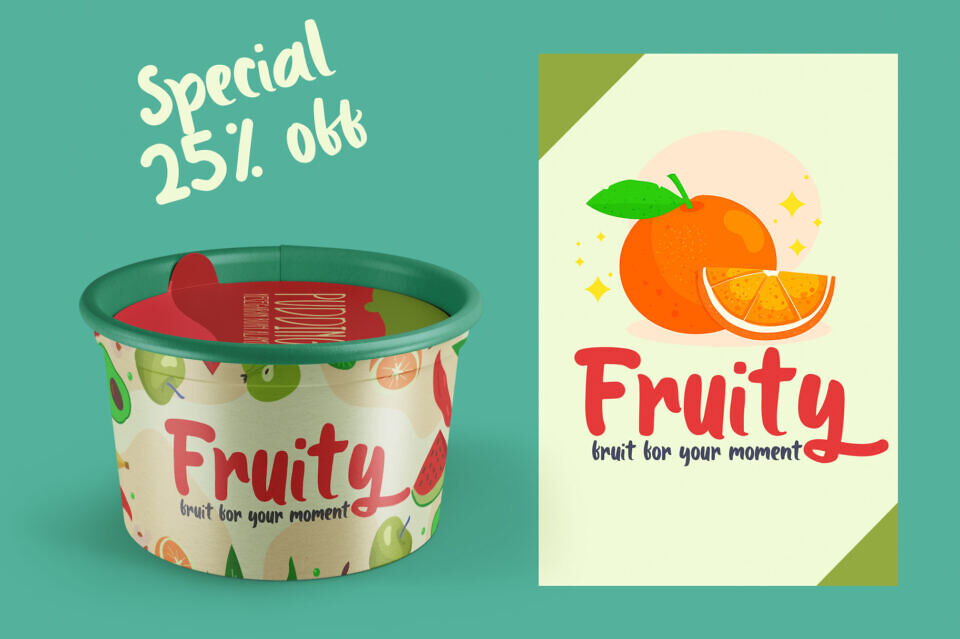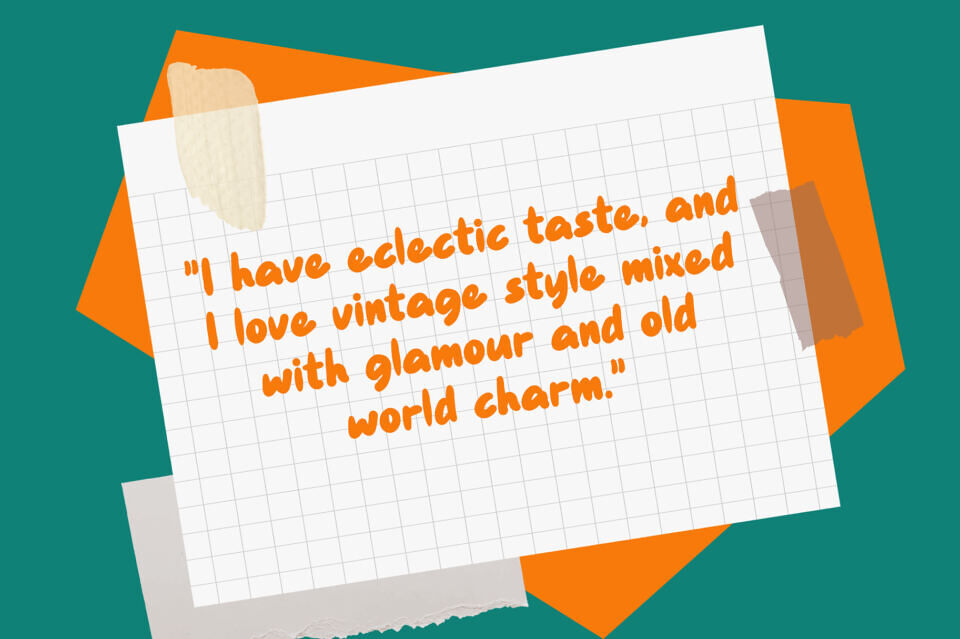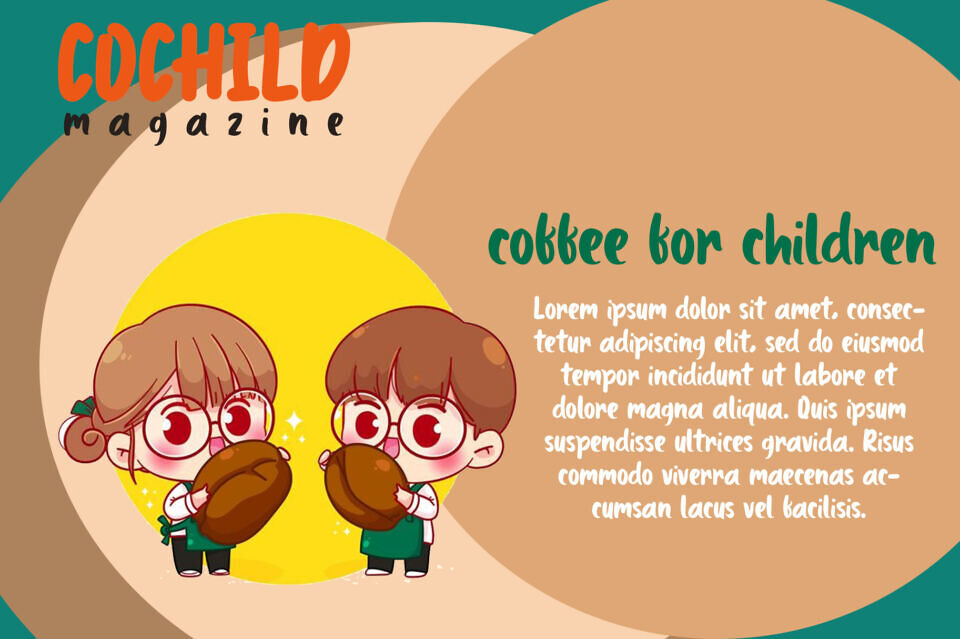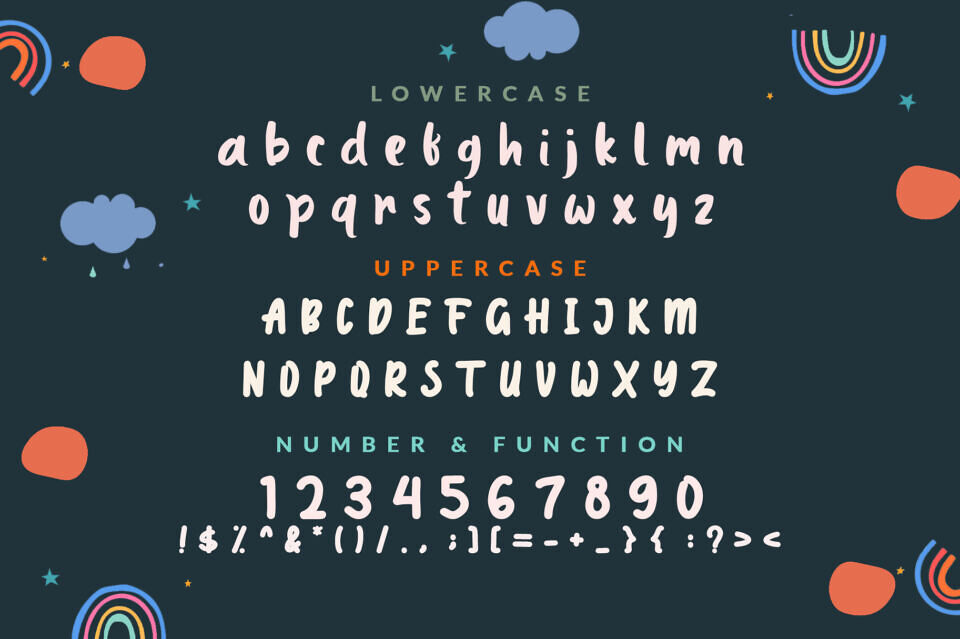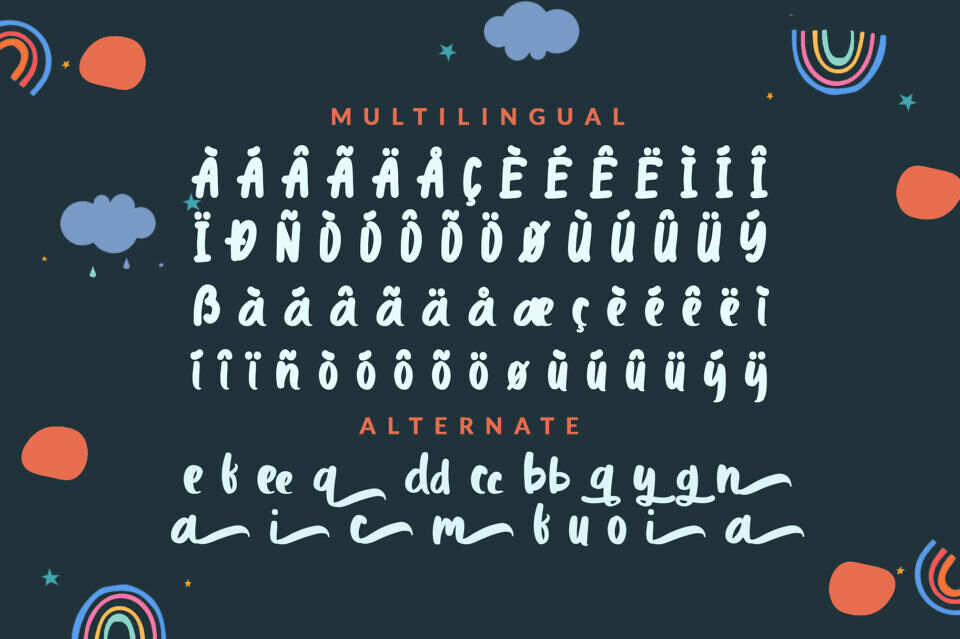
Coffee Healing is a cute and joyful display font. It embodies playfulness and authenticity and is the perfect choice for any children activity or school project.